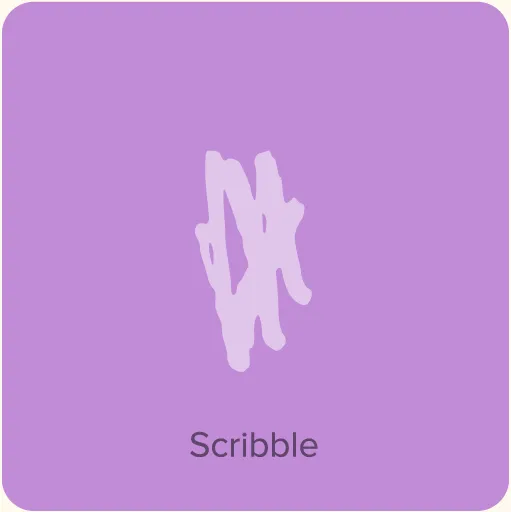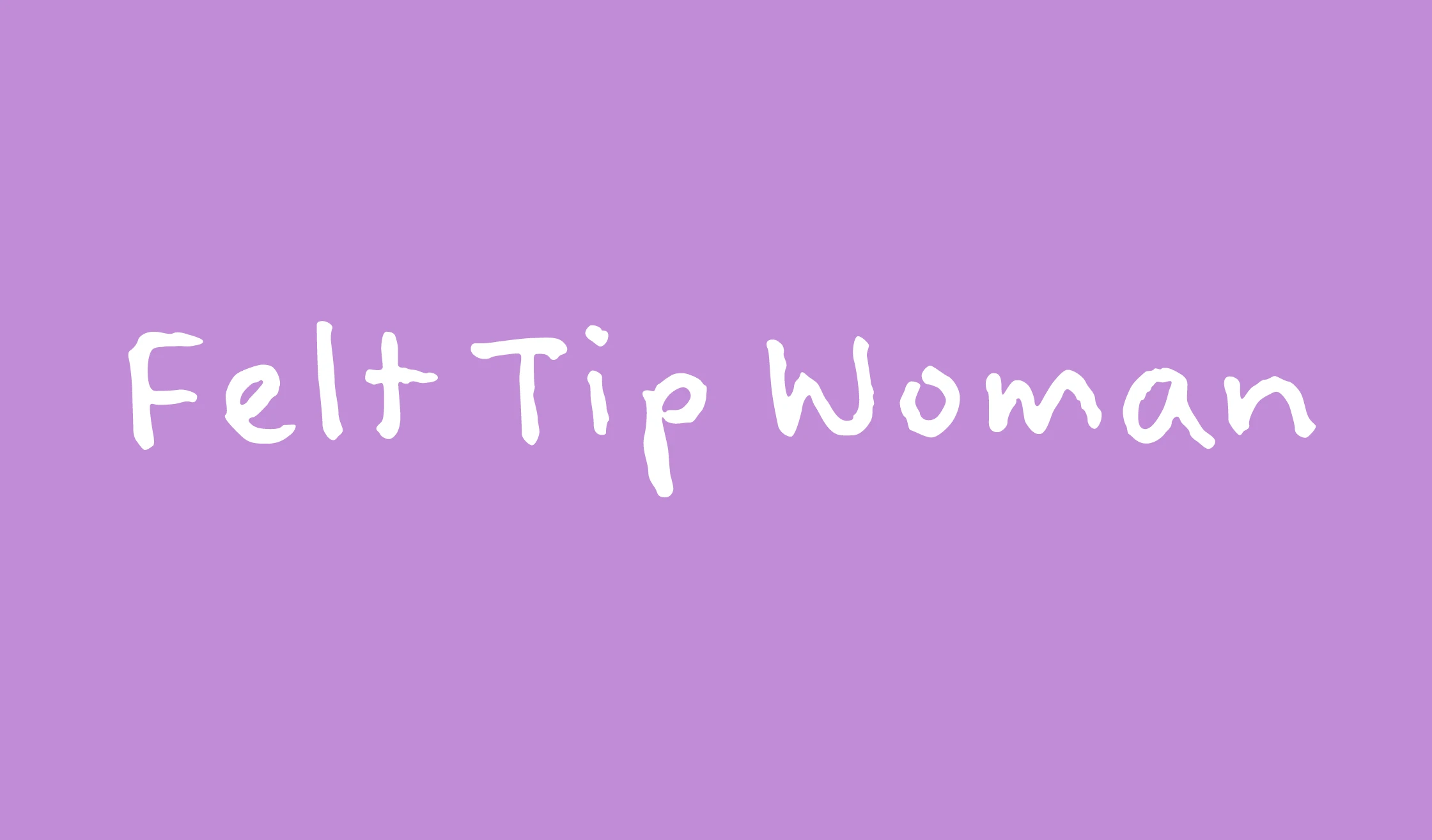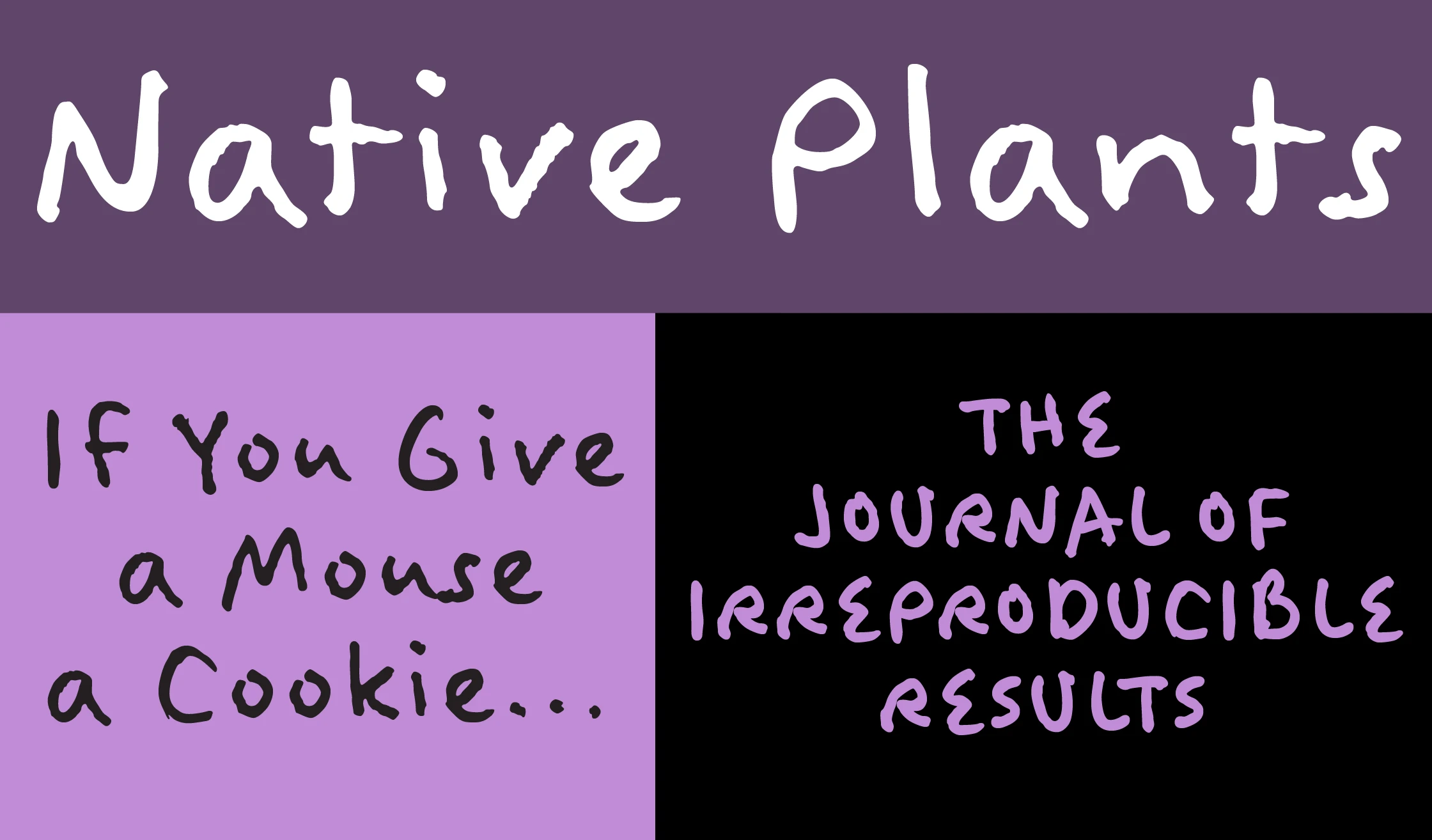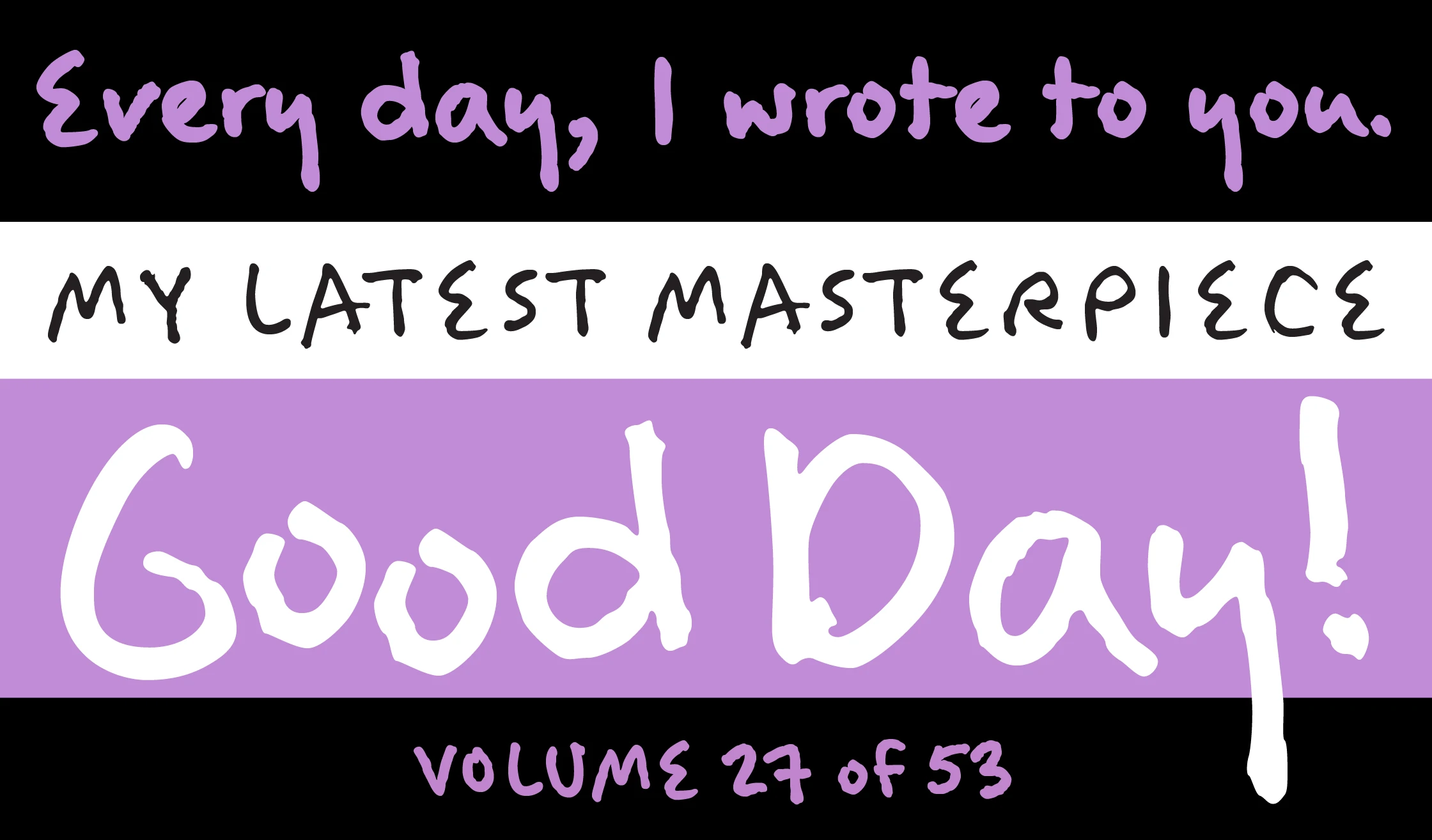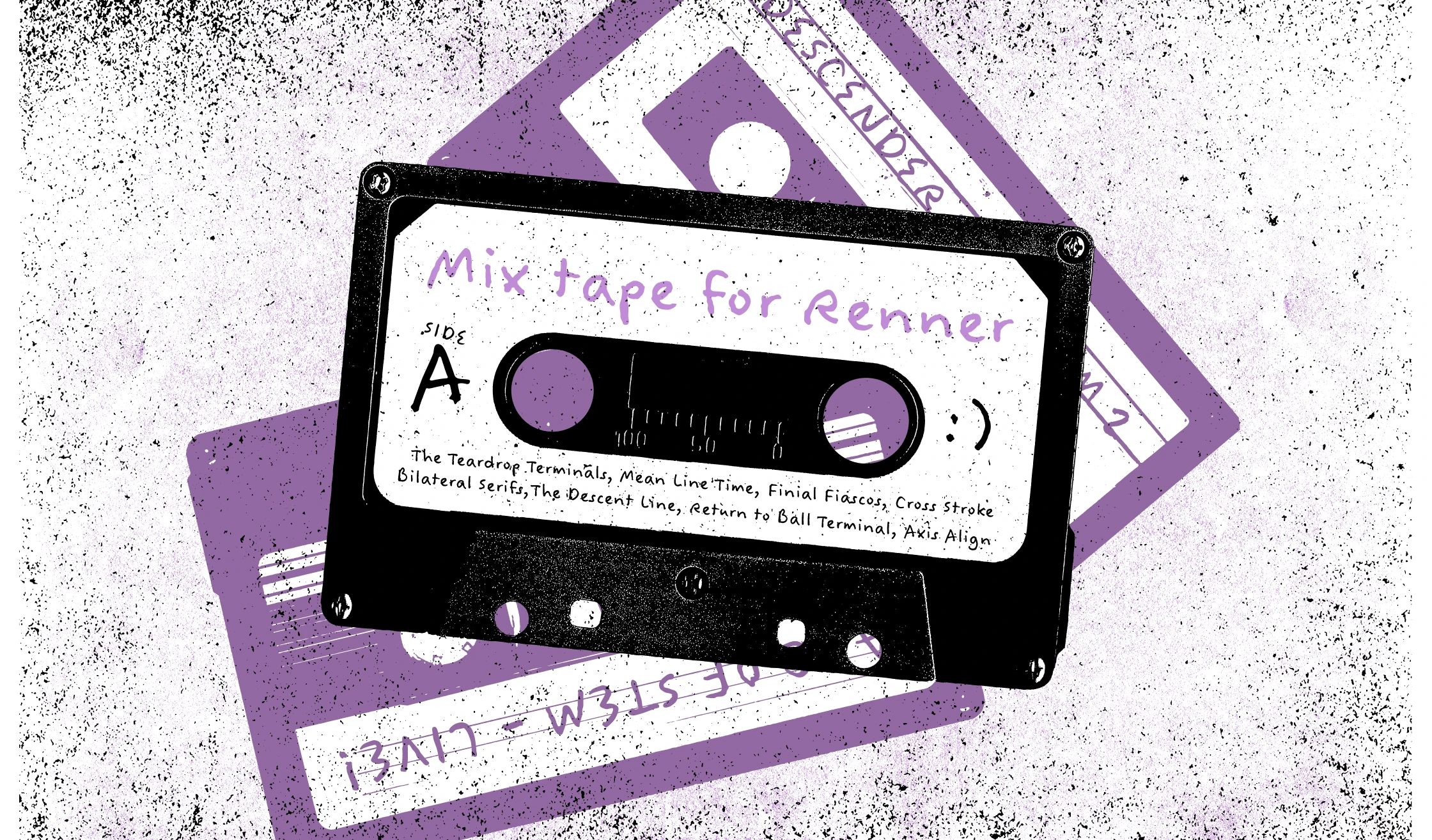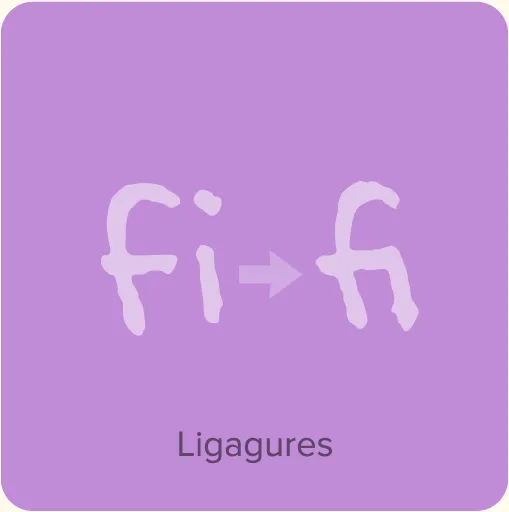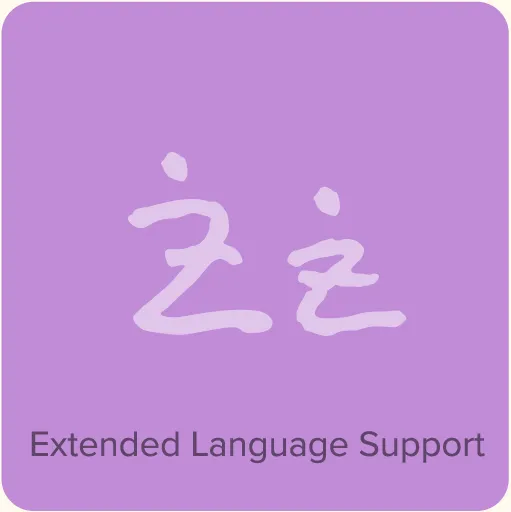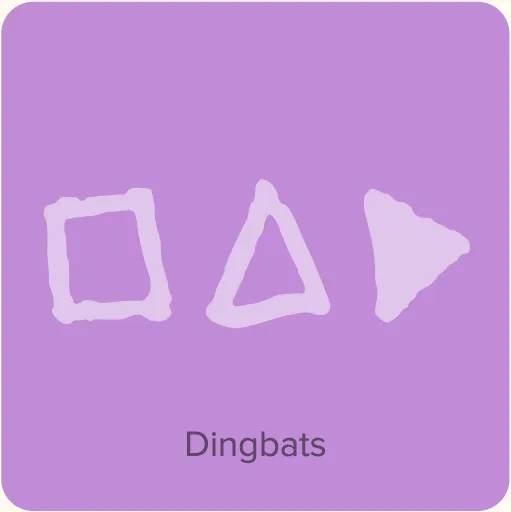
Felt Tip Woman (2003) is based on the handwriting of graphic designer Pat Thompson. The name was inspired by a misunderstanding: Pat was working with the editor of a children’s book journal when she noticed that one of the books they were reviewing was set in my Felt Tip Roman. Pat pointed this out to the editor who replied, “Did you say Felt Tip Woman? What a strange name for a typeface!” We decided this would be the perfect name for a font based on her handwriting.
Felt Tip Woman Features
- Two weights: Regular and Bold.
- Ligatures.
- Symbol characters.
- Extended language support for most Latin-based Western and Central European languages.